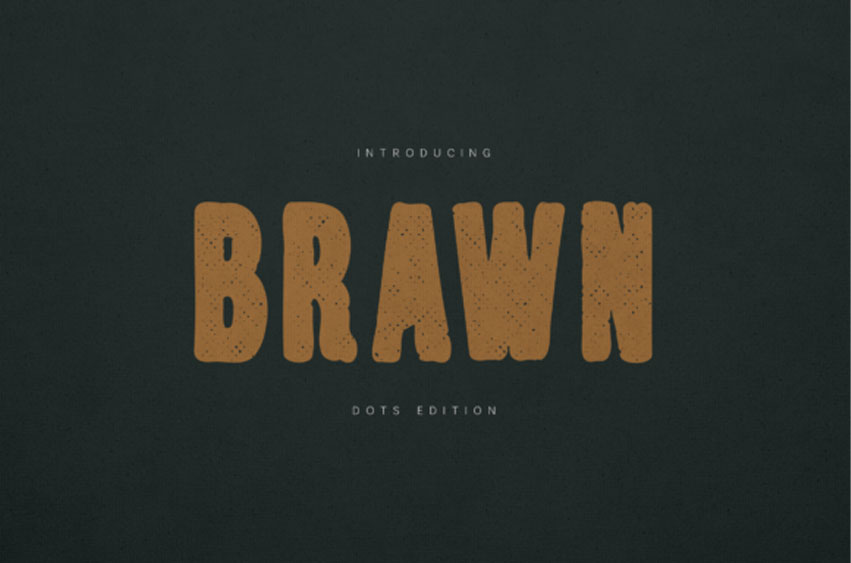
Brawn Dots Edition Font is a bold, textured display typeface designed to make a strong visual impact. With its chunky proportions, slightly irregular curves, and subtle dotted texture, Brawn delivers an authentic vintage poster aesthetic. The handcrafted feel gives it personality while maintaining clarity and legibility. The Brawn Dots Edition font is perfect for masculine branding, outdoor equipment labels, and retro-style posters.
Because of its massive weight, the Brawn Dots Edition typeface commands attention as a headline font, especially when used on textured backgrounds like wood or denim. Pairing the Brawn Dots Edition font with simple, clean thin-line icons creates a compelling contrast between grit and modernism, making it essential for any “workwear” or industrial aesthetic.
Perfect for bold headlines and branding projects that need strength, warmth, and character.
Ideal for:
• Vintage posters
• Retro branding
• Craft beer labels
• Streetwear design
• Packaging
• T-shirt graphics
• Bold logos
• Social media graphics
• Event flyers
Brawn Dots Edition is confident, expressive, and unapologetically bold — built for projects that demand attention.